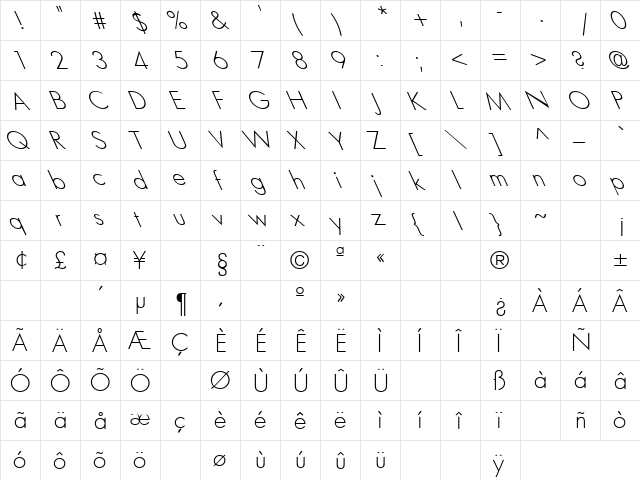
Loving 13 Regular
Design Context for Loving 13 Typeface
Loving 13 is a composed and adaptable typeface that performs quietly and consistently across a wide range of design contexts.